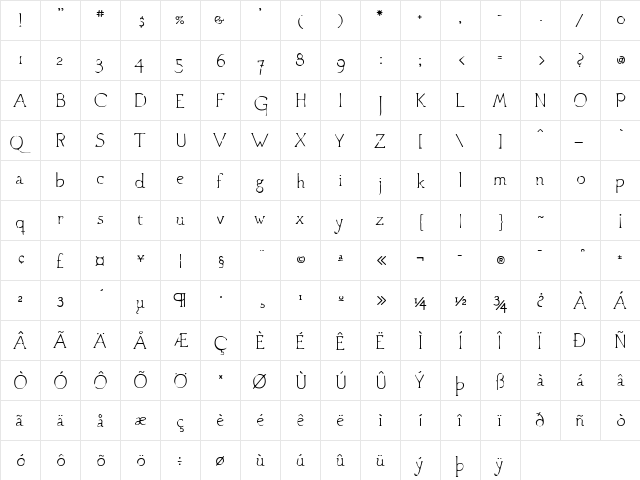
AgedBook Worn Regular Font Preview
AgedBook Worn Regular
AgedBook Worn Regular Font Details
Design Context for AgedBook Worn Typeface
AgedBook Worn embraces imperfection — its rough, textured character adds raw authenticity to designs that want to feel lived-in and unconventional.
Suited to punk-influenced zines, underground music branding, streetwear, and raw, anti-corporate design.
Pro Tip: Pair AgedBook Worn with intentionally raw or lo-fi design elements. Fighting against it with overly polished surroundings will undermine its personality.